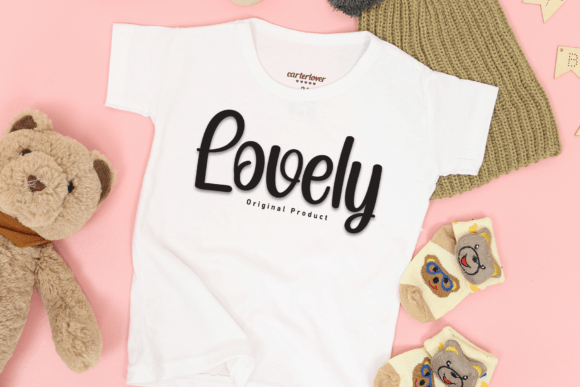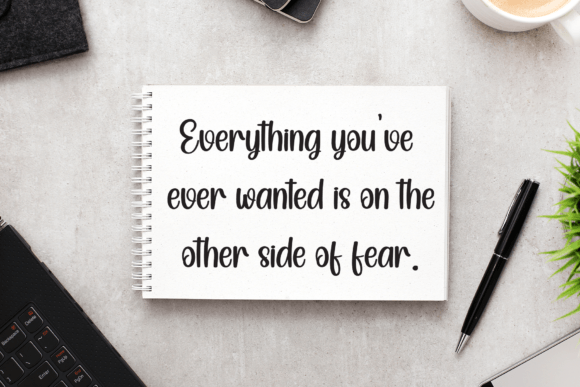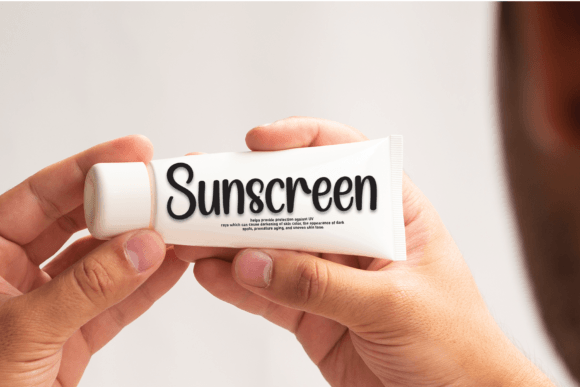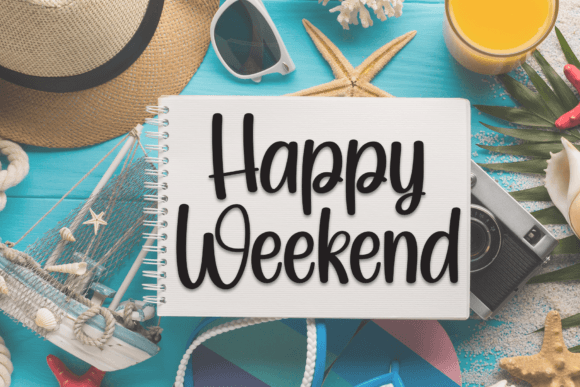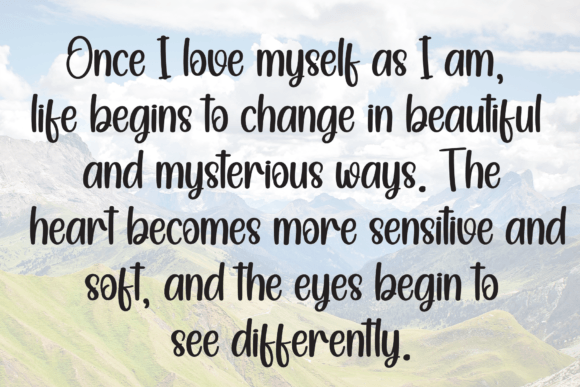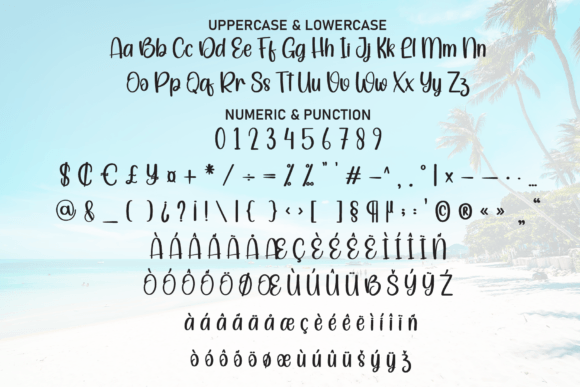
Summer Vibes and Design Inspiration
As the sun shines brighter and warmer days unfold, I find myself gravitating towards projects that evoke the carefree spirit of summer. There’s something about the season that sparks creativity and inspires us to let our hair down – or in this case, our design tools.
Enter the Beach Summer Font, a charming handwritten typeface that embodies the relaxed, playful essence of a summer day. Perfect for personal projects, invitations, and social media graphics, this font’s rounded strokes and hand-drawn aesthetic add a delightful, whimsical touch to any design. For designers, the Beach Summer Font is a valuable addition to their toolkit, offering a unique way to convey warmth and friendliness in their work.
Whether you’re creating a summer-themed campaign or simply looking to inject some personality into your designs, the Beach Summer Font is sure to bring a smile to your face – and to your audience’s faces, too.
Beach Summer Font Key Features
- Font Style: A casual, cursive script font designed to evoke a sense of relaxation and summer vibes.
- Unique Characteristics: Features swashes, flourishes, and other decorative elements that add a touch of whimsy and playfulness to your designs.
Beach Summer Font Review
Overall, I’d say the Beach Summer Font has a lovely, laid-back vibe ✨ that’s perfect for summer-themed projects, like beach-inspired websites or social media graphics. The font is playful, yet still readable, which is a great combination for casual designs.
- Fun, carefree feel ✨: The Beach Summer Font captures the essence of a relaxing summer day, making it ideal for projects that need a light-hearted tone.
- Well-crafted characters ✨: The font’s characters are well-designed and consistent, ensuring a professional finish even in casual designs.
- Works well for headlines ✨: The font is bold and eye-catching, making it perfect for headlines and titles.
However, there are a few limitations to keep in mind ⚠️:
- Limited flexibility: The Beach Summer Font may not be suitable for formal or corporate designs, as it’s a bit too playful and casual.
- May not be ideal for small text: While the font is readable, it may become too small or difficult to read in certain contexts, like body text.
Overall, I think the Beach Summer Font is a great choice for summer-themed projects or casual designs that need a light-hearted touch. Just be mindful of its limitations and use it thoughtfully to get the best results.
Tips for Getting the Most Out of Beach Summer Font
Here are some tips for getting the most out of Beach Summer Font:
- Use Beach Summer Font for beach-themed designs, summer invitations, and outdoor events.
- Pair Beach Summer Font with bright and bold colors to create a fun and playful look.
- Experiment with different font sizes and styles to add visual interest to your design.
Beach Summer Font is commonly used for:
- Beach party invitations and decorations.
- Summer-themed social media posts and graphics. Alternatives to Beach Summer Font
- Choose a light blue or pastel color scheme to match the beachy theme.
- Use the font to write out the main invitation details in a bold and playful style.
- Add some beach-themed graphics, such as seashells or starfish, around the text for extra visual interest.
- Use a combination of bold and italic font styles to create a sense of movement and playfulness.
Summer Vibes
Beachy Invitation Cards
Create eye-catching invitation cards for beach-themed parties or events using the Beach Summer Font. Use it to write out the invitation details, such as the date, time, and location.
Summer Quote Print
Create a beautiful summer quote print using the Beach Summer Font. Choose a inspiring quote that captures the essence of summer and pair it with a stunning beach-themed background.